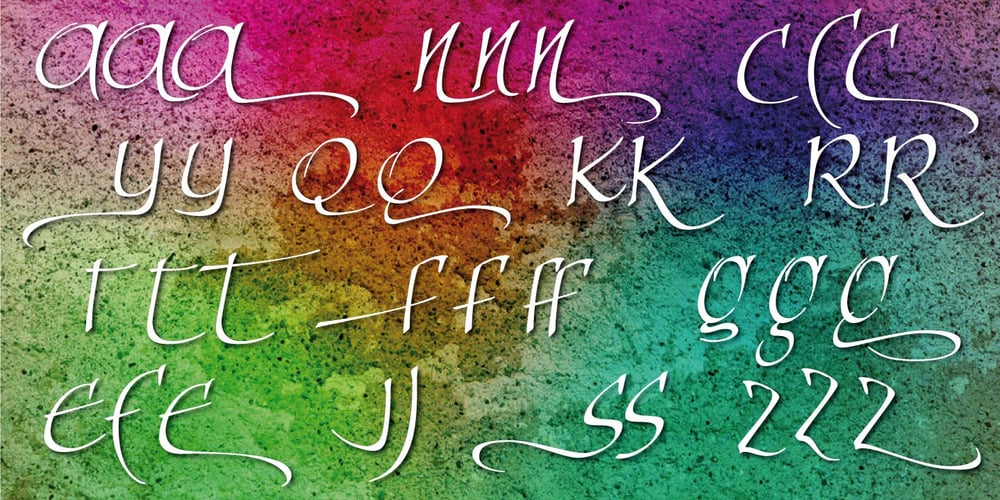
Nova Caere
Nova Caere font
Nova Caere Font Family was designed by Alberto Pedro Di Santo and published by Eurotypo. Nova Caere contains 1 styles and family package options. Nova Caere is a typical urban calligraphy, gestural with its fast lines, with short and slightly noticeable ascender and descender traits. Condensed lower case and rounded capital letters are quite similar in height. Nova Caere has been studied for alternating upper and lower case inside the words of the text, so as to reinforce their expressive content. Stylistic variations that combine particular couples of letters have been developed, as well as some descender traits have been highlighted that can be employed to characterize words and phrases.